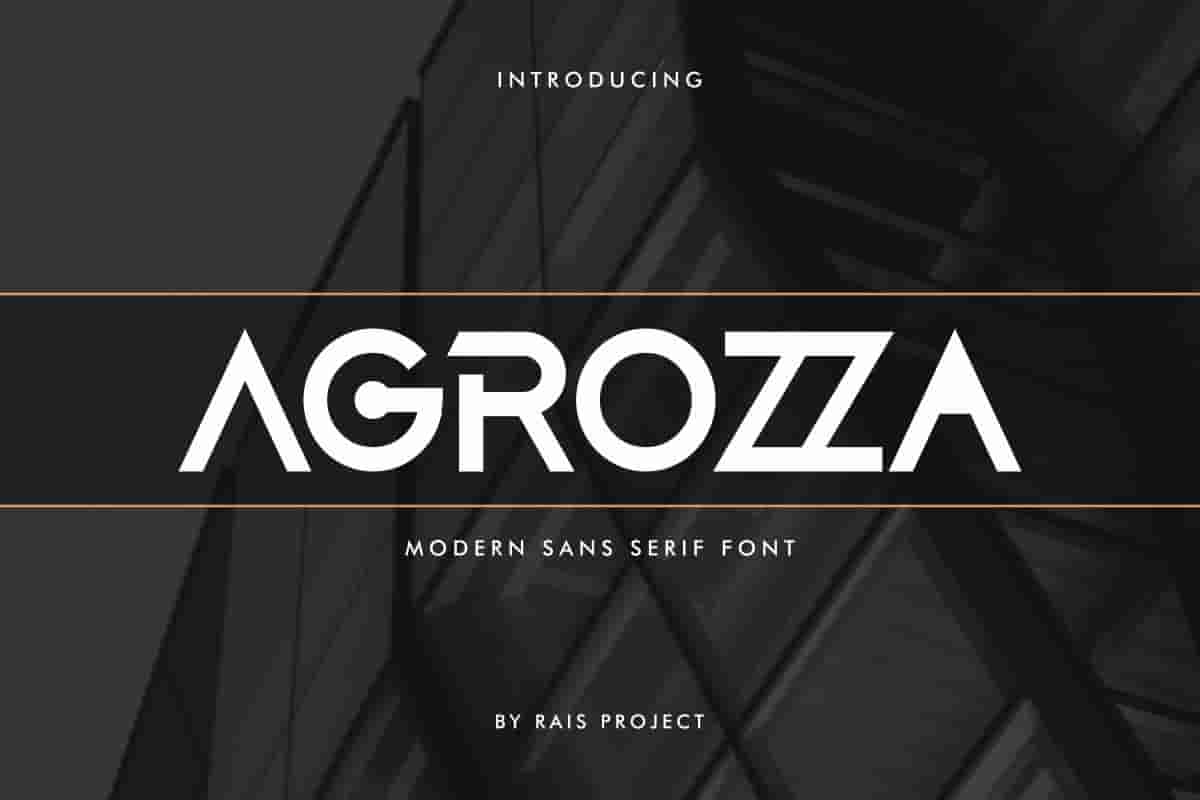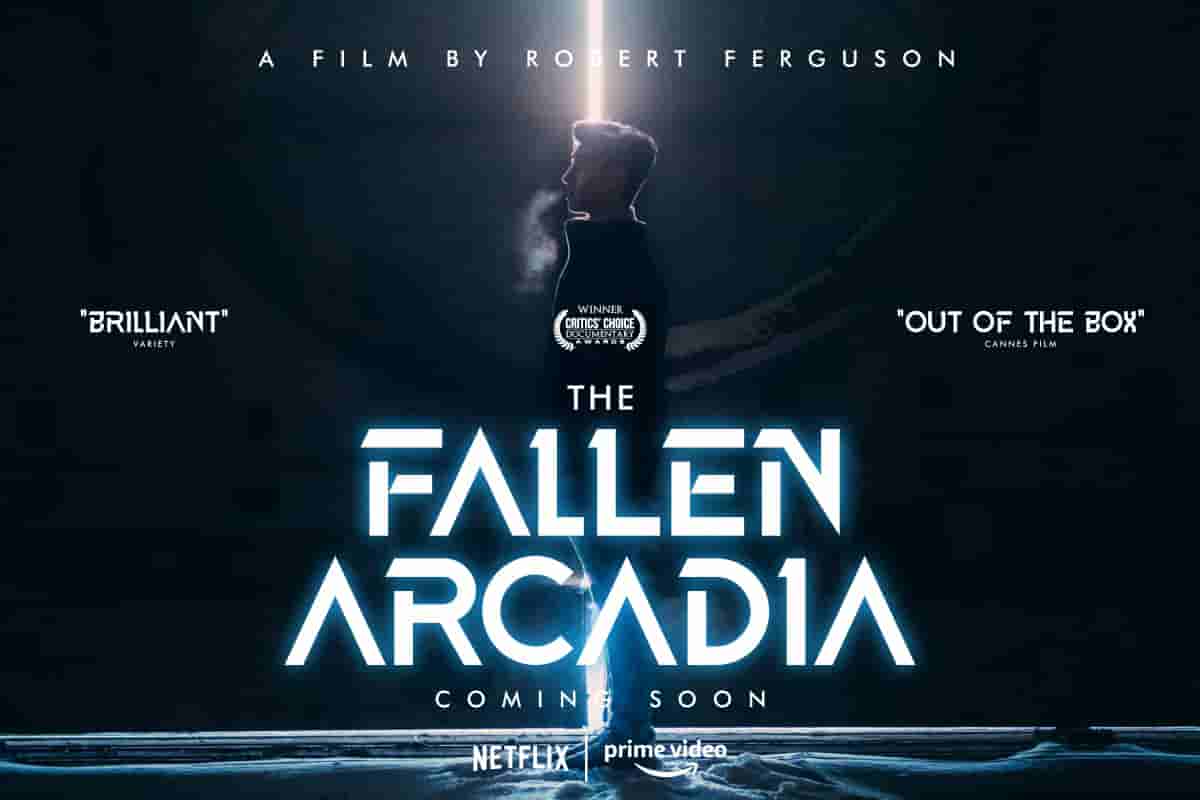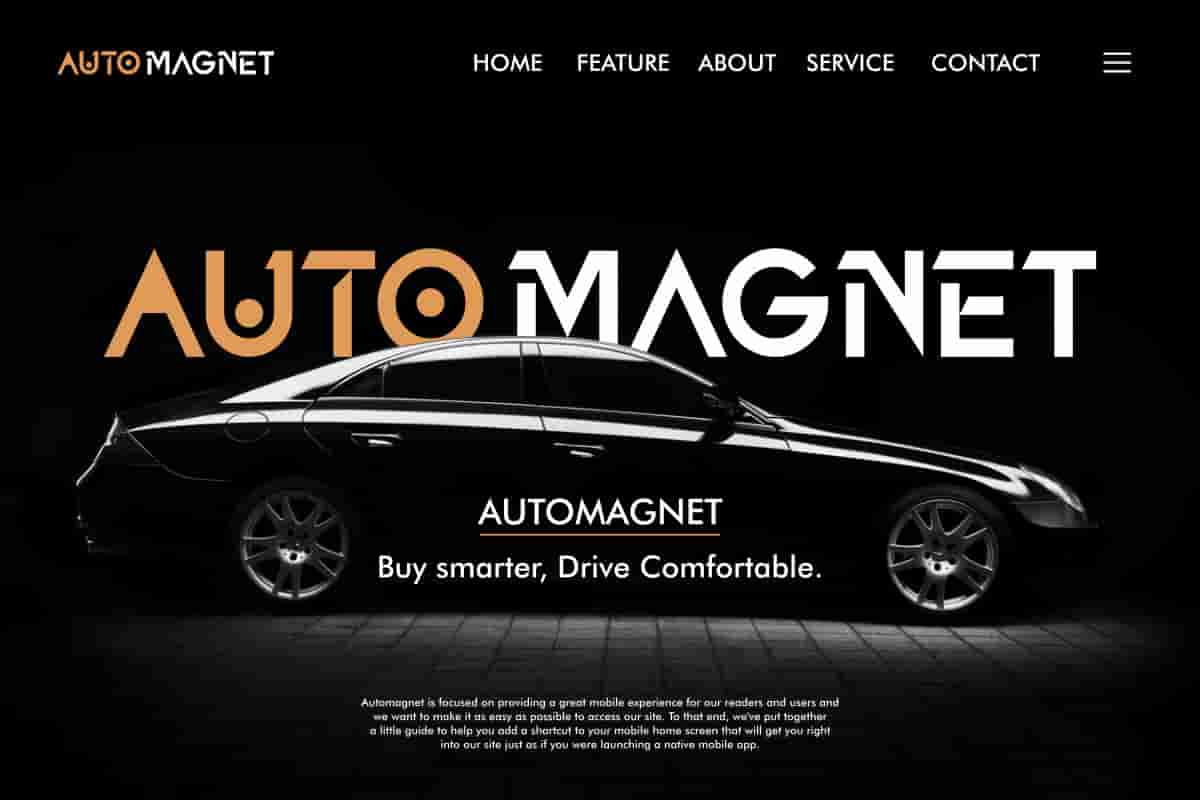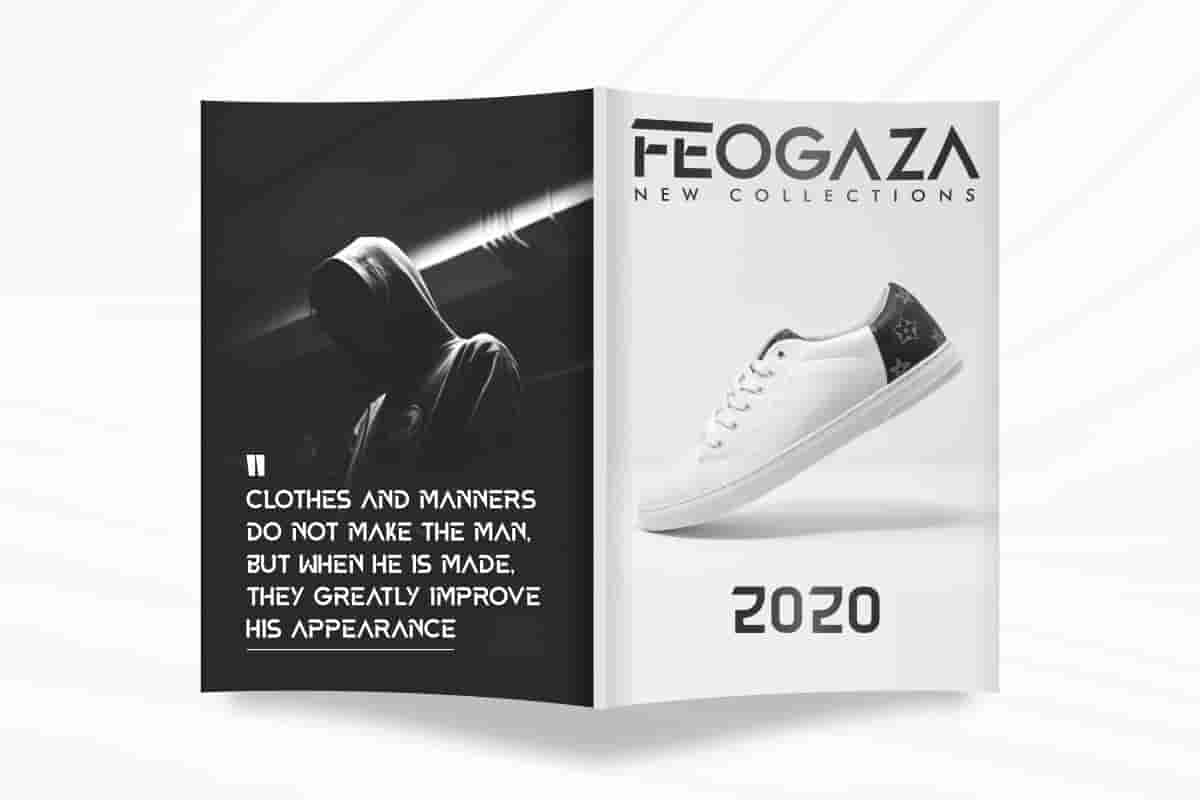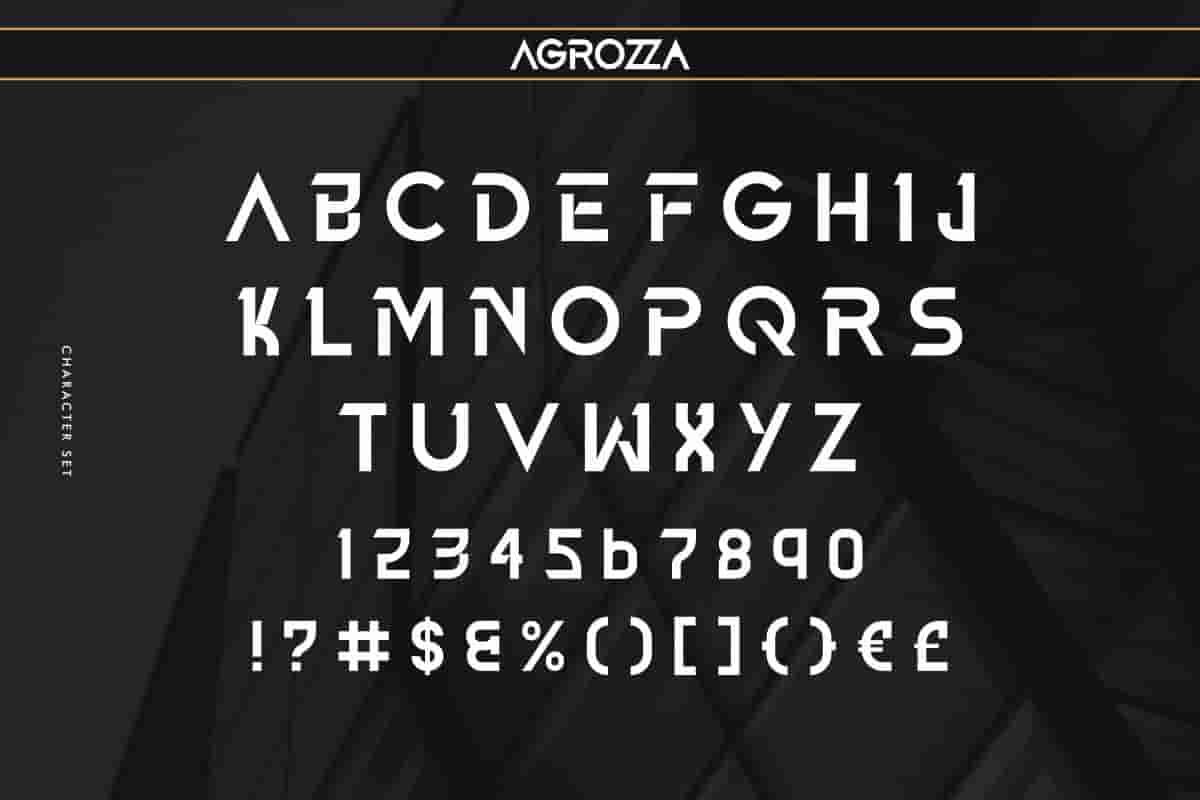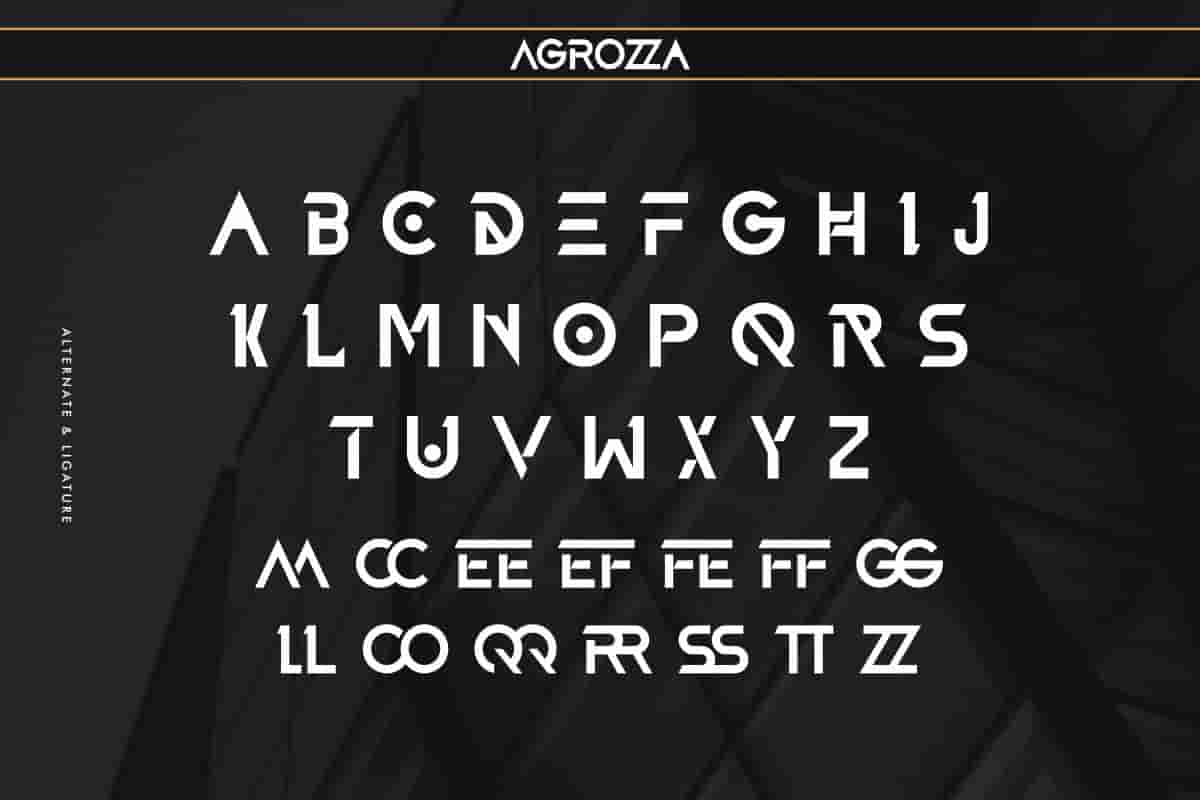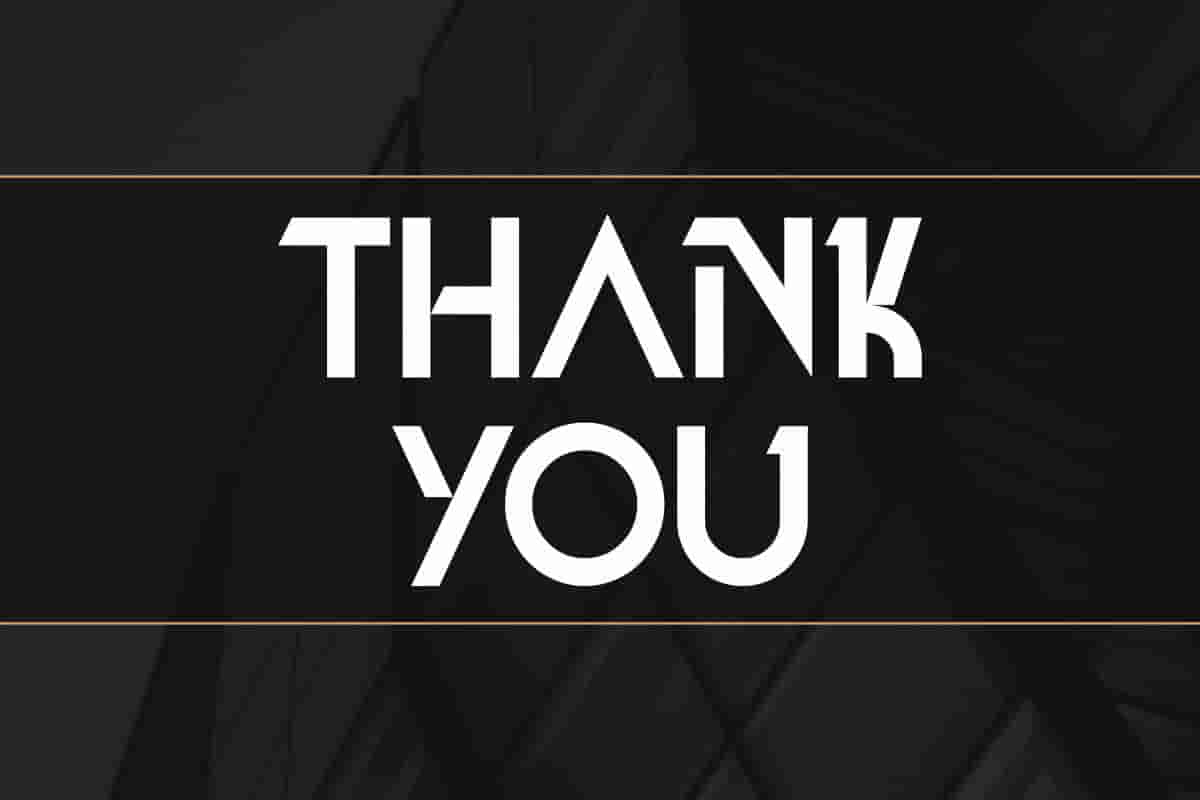
AGROZZA Sans Serif Font
AGROZZA Font is a modern sans serif font, designed by Rais Project. It has unique ,exclusive and futuristic Uppercase letters that will be awesome for many designs project.
AGROZZA Font is a modern sans serif font display family, designed by RaisProject. AGROZZA Font is our new font on the market. It has futuristic, modern and stylish style. You can see the demo font below. You can also input any word you want so you can see what it will look like :
AGROZZA Font remotely made by RaisProject team in Indonesia.Designed with sharp serifs, smooth curves, and stylish letterforms, Agrozza delivers a timeless yet contemporary feel.Designed with sharp serifs, smooth curves, and stylish letterforms, Agrozza delivers a timeless yet contemporary feel.Agrozza sans serif font comes complete with uppercase and lowercase characters, numbers, punctuation, and multilingual support. Whether you’re creating a luxury brand logo, a stylish magazine spread, or an elegant wedding invitation, this is the photo.